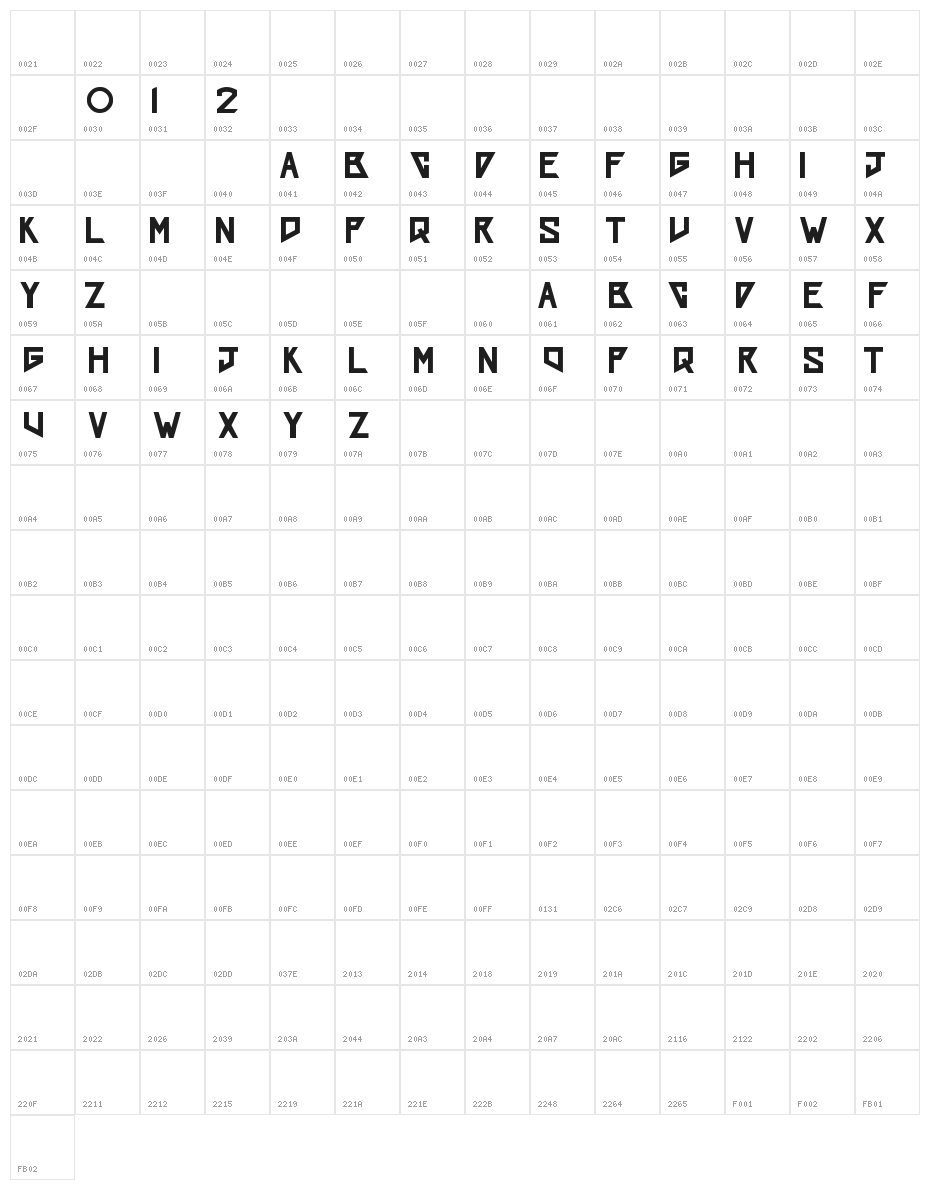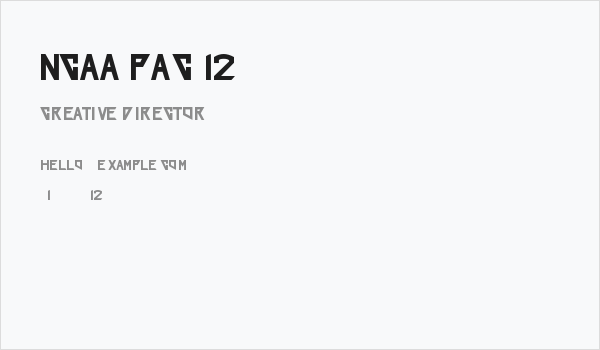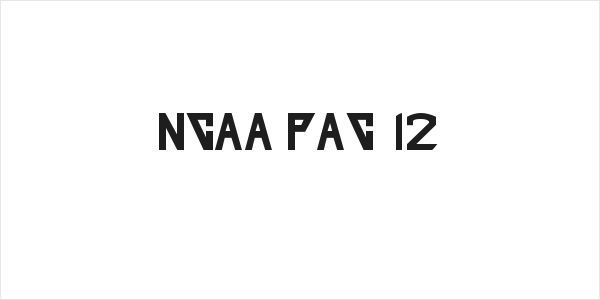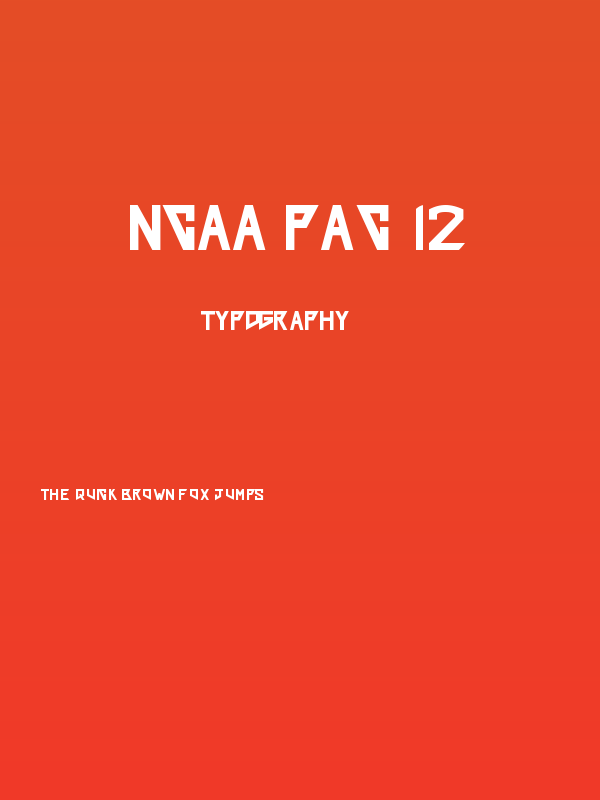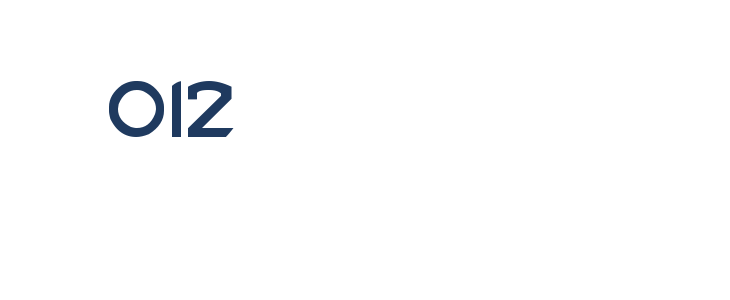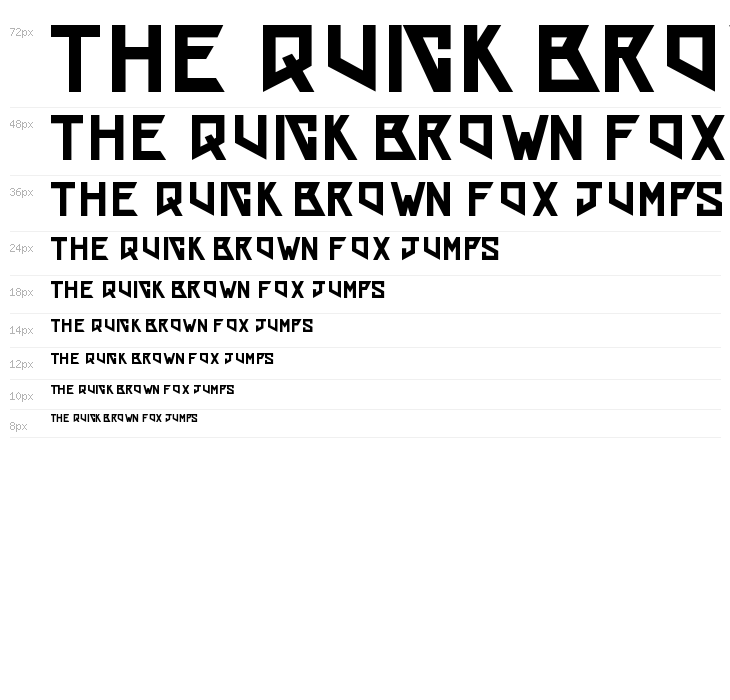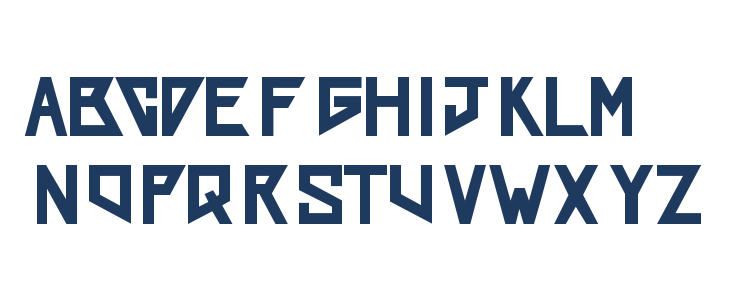
NCAA PAC-12 Font
NCAA PAC-12 Description
This font features a bold, geometric style with sharp angles and a strong presence. The uppercase letters are characterized by their blocky, angular forms, giving them a futuristic and dynamic appearance. The numbers follow a similar design, maintaining consistency across the character set. The font's unique style is achieved through its distinctive use of negative space, particularly evident in letters like 'A', 'B', and 'R', where cut-out sections create an eye-catching effect. The overall design is modern and assertive, making it suitable for projects that require a bold statement.
| Proposed Projects | Ideal for sports branding, team logos, posters, and merchandise that require a strong, modern look. |